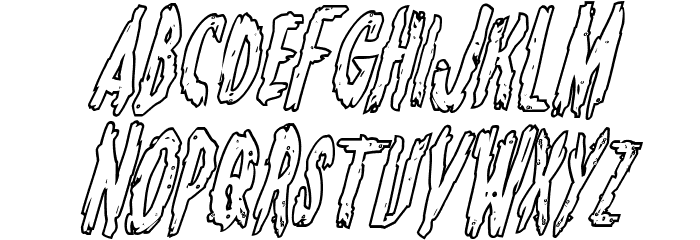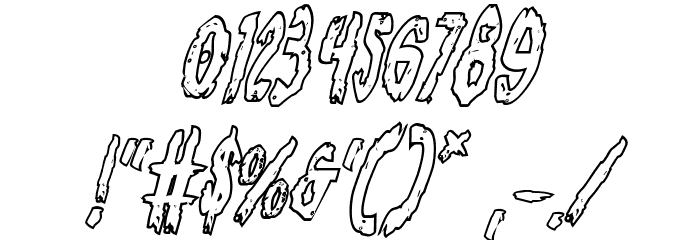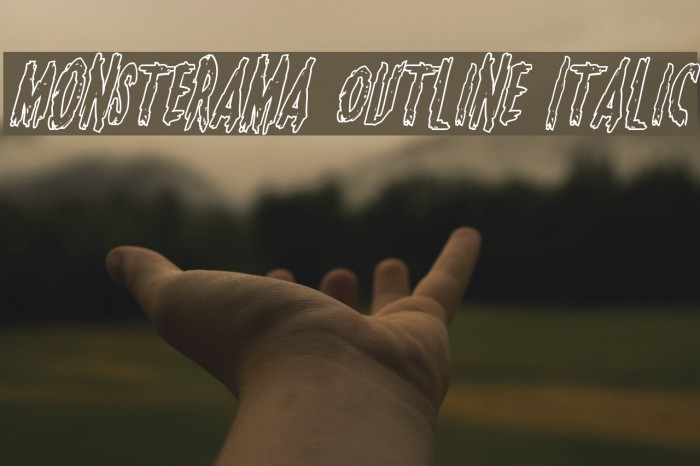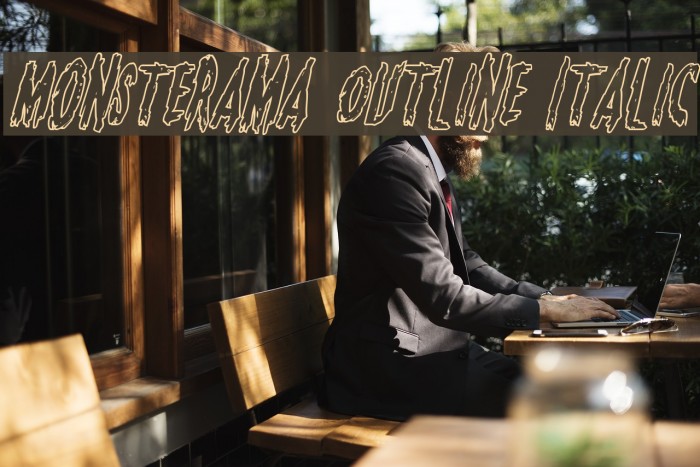
Monsterama Outline Italic Font
This font features a bold, jagged outline style that gives it a rugged and edgy appearance. The characters are designed with an irregular, distressed look, reminiscent of horror or monster-themed aesthetics. The uppercase and lowercase letters maintain a consistent style, with sharp angles and uneven edges that create a sense of movement and chaos. The numbers and special characters follow the same design principles, ensuring a cohesive look across all glyphs. This font's unique style makes it stand out, perfect for projects that require a dramatic and eye-catching typeface.
A bold, jagged outline font with a rugged, distressed appearance.
- Proposed Projects: Ideal for horror-themed posters, Halloween invitations, video game titles, and any project needing a dramatic, edgy font.